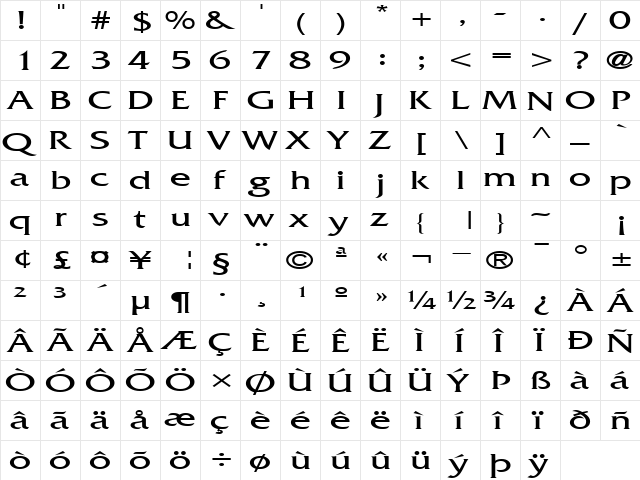
AllianceExtended Regular
AllianceExtended is a composed and adaptable typeface that performs quietly and consistently across a wide range of design contexts.